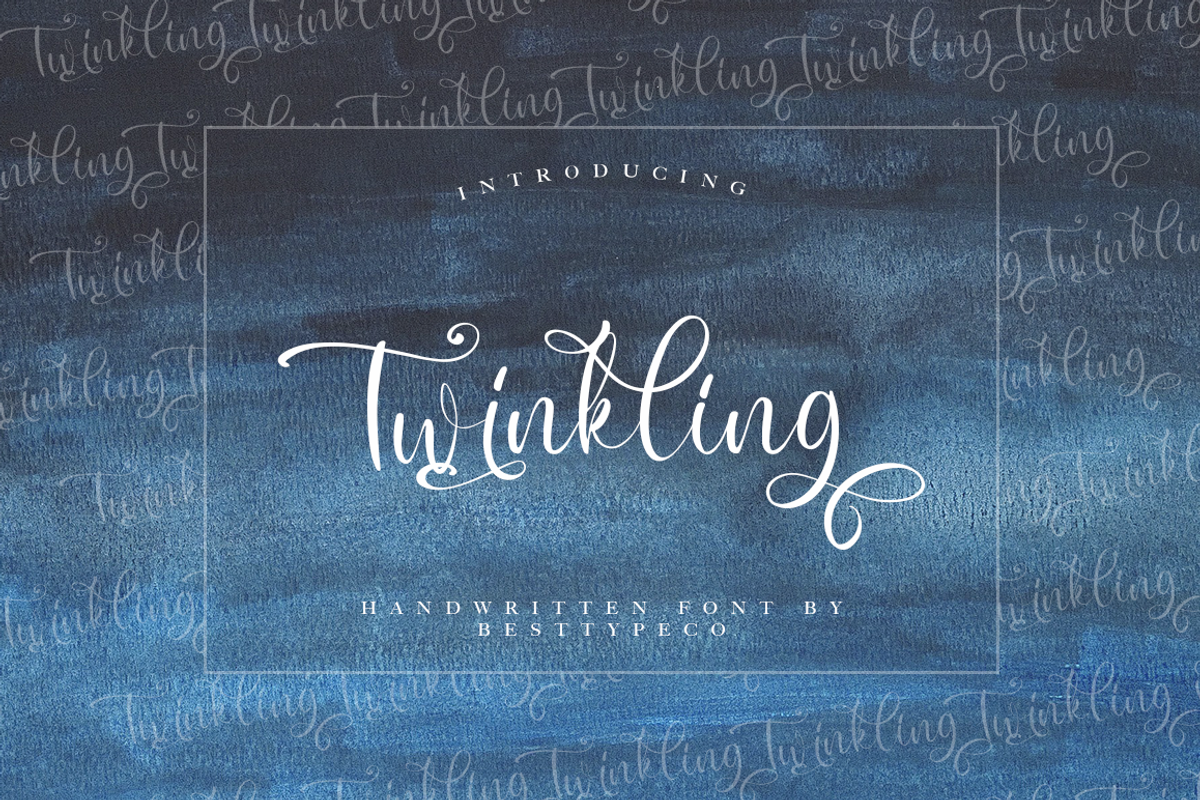
Twinkling Font Free Download is a charming and whimsical handwritten script that sparkles with personality. With its flowing strokes, playful bounce, and lighthearted style, Twinkling is perfect for greeting cards, wedding invitations, kids' projects, branding, and festive social media content.
Designed to feel soft and joyful, this font captures a magical, handwritten feel that’s both stylish and approachable. It includes ligatures and alternate characters to give your text a natural and custom-crafted look.
Add a little sparkle to your work with Twinkling Font Free Download. Try the demo today and let your creativity shine with this delightful, handwritten typeface.